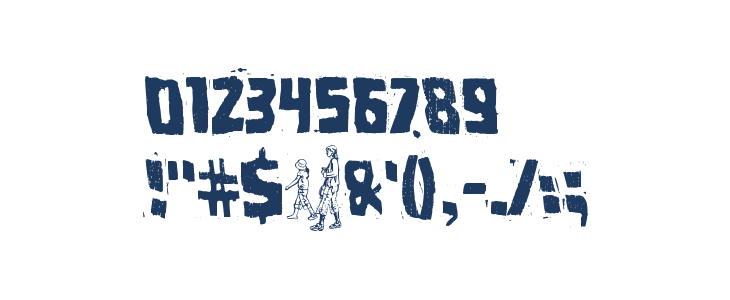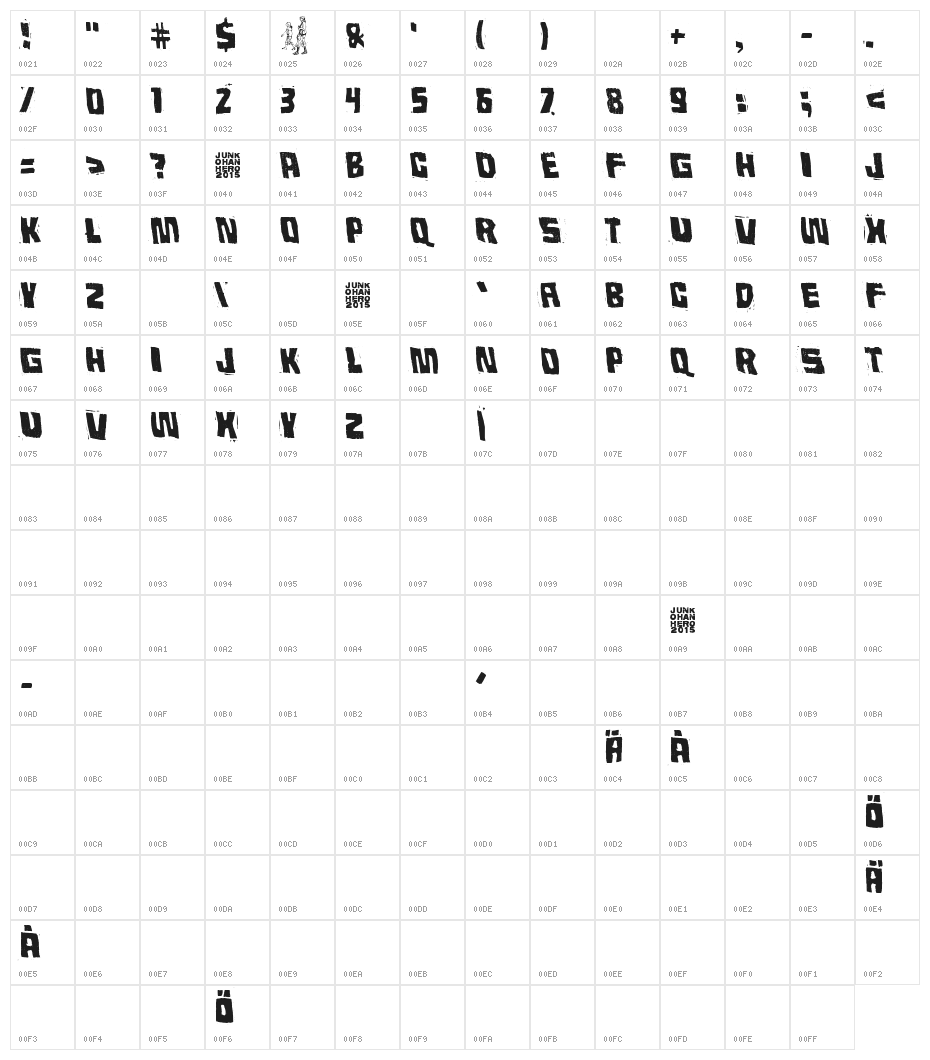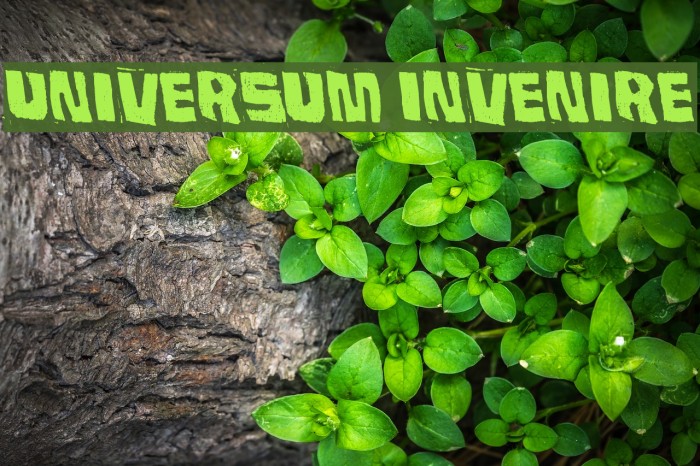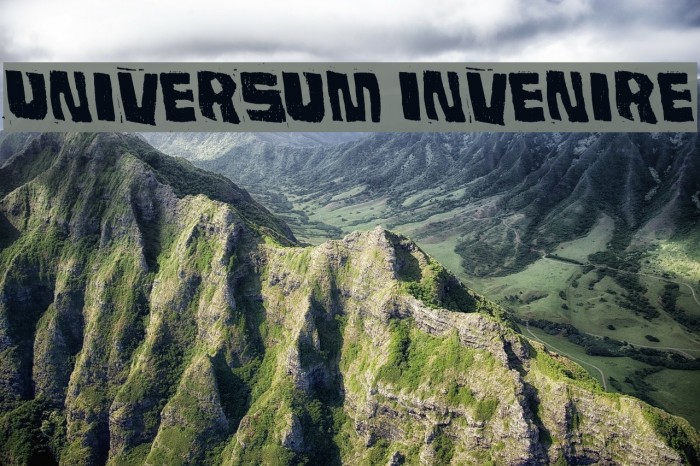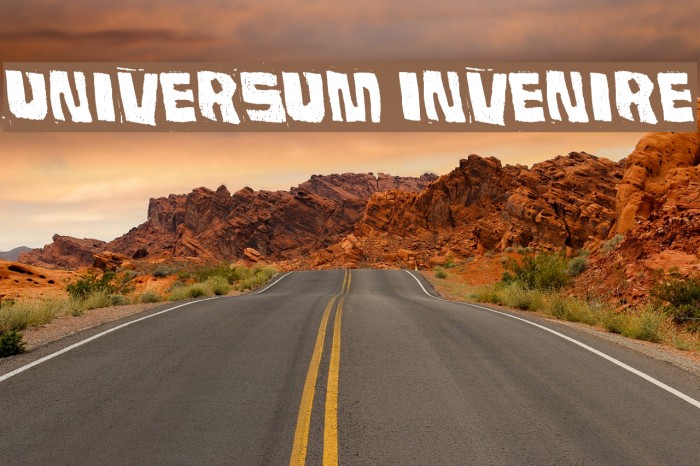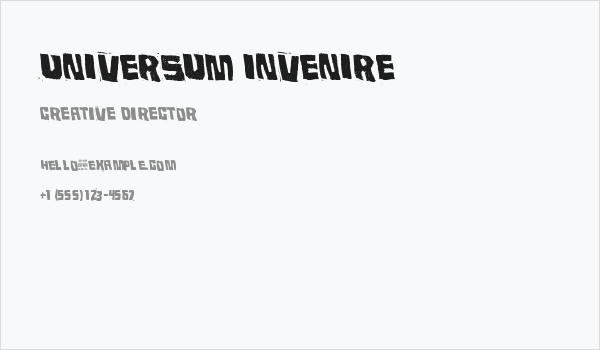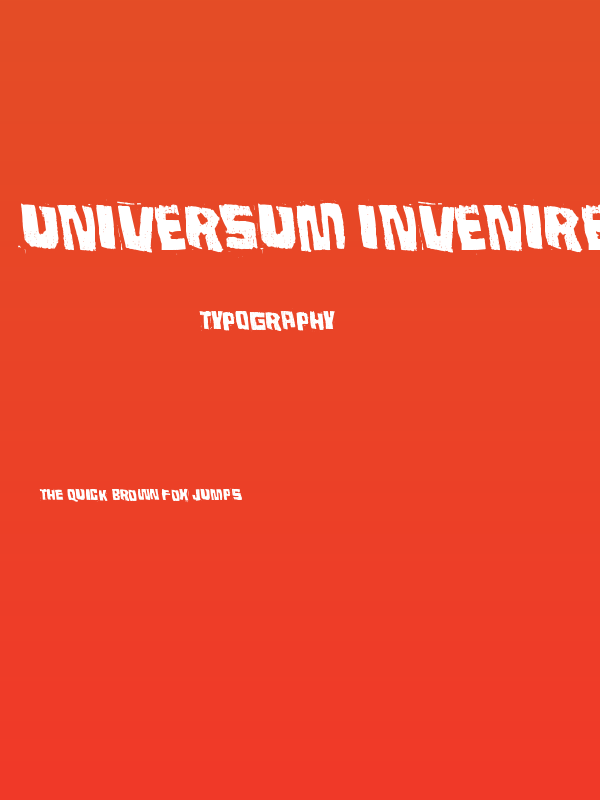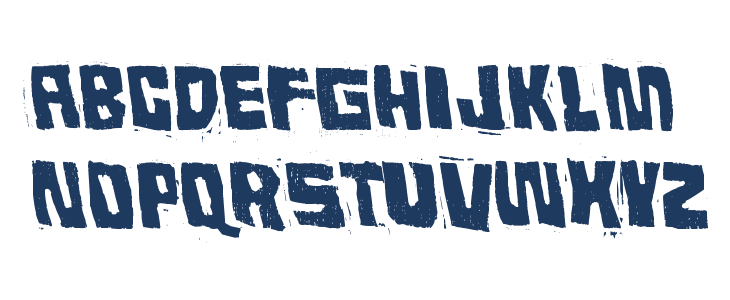
Universum Invenire Font
Universum Invenire Description
This font exudes a rugged, distressed aesthetic with its bold, uneven strokes and rough edges, reminiscent of hand-painted or stamped lettering. The characters are bold and impactful, with a slightly irregular baseline that adds to its raw, organic feel. The uppercase letters are particularly striking, with a blocky, geometric form that commands attention. The numerals and special characters maintain this bold, distressed style, ensuring consistency across all glyphs. This font is ideal for projects that require a strong, vintage, or industrial vibe, making it perfect for posters, album covers, or branding that seeks to convey a sense of authenticity and grit.
| Overall Style | Vintage, Industrial |
| Proposed Projects | Ideal for posters, album covers, branding, and any project needing a strong, vintage aesthetic. |